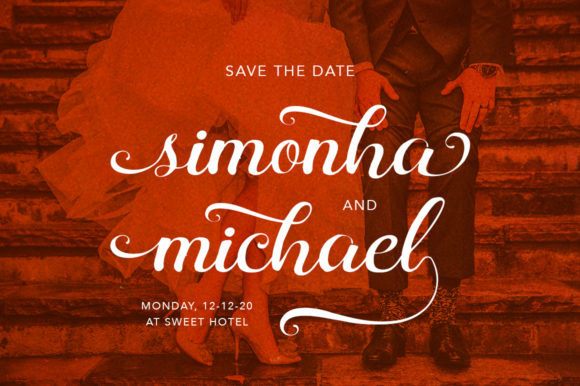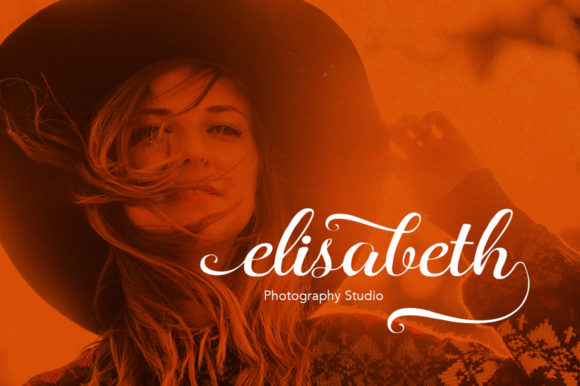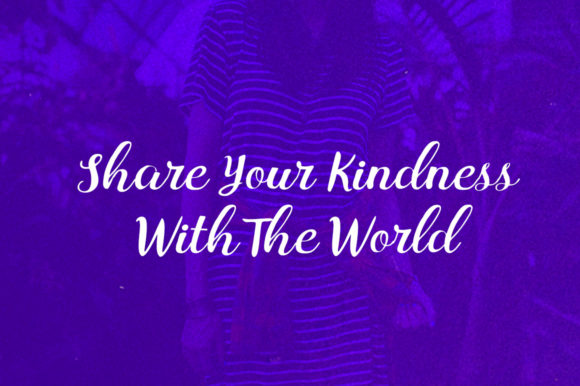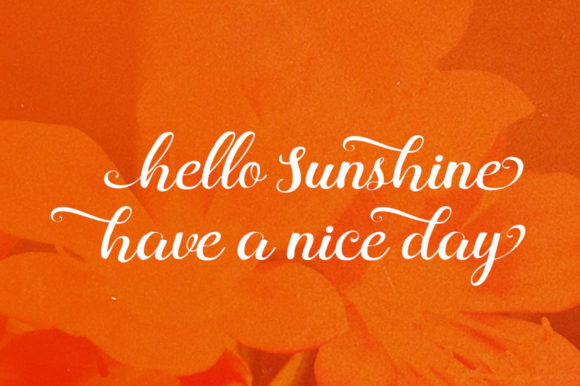
Introduction to Manstora Font Font
Fonts play a crucial role in design, and the Manstora Font font is a typeface that brings both character and versatility to any project. Whether you’re working on a branding project, a website, or a print design, the Manstora Font font offers a unique style that can elevate your work.
| 📌 Font Name | Manstora Font |
| 👤 Author | Solidtype |
Manstora updates classic calligraphy with a modern twist.
It will turn any design projects into an authentic piece of art .
Key Features of Manstora Font Font
Why Choose Manstora Font Font?
The Manstora Font font is more than just a typeface – it’s a design tool that helps you communicate your message with style and clarity. Its unique character set and versatile design make it suitable for a wide range of applications, from elegant invitations to bold headlines.
With its carefully crafted letterforms and balanced proportions, the Manstora Font font ensures readability and visual appeal across all mediums.
What makes Manstora Font font special?
The Manstora Font font stands out with its unique design, exceptional readability, and versatility across various design applications.